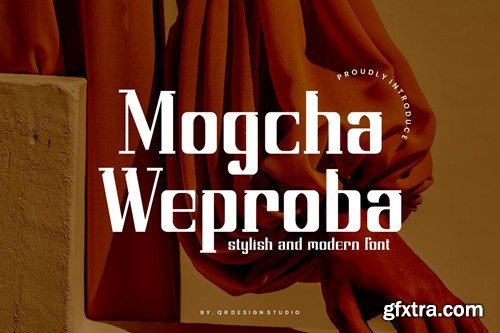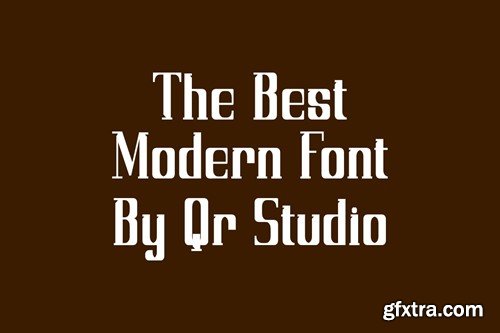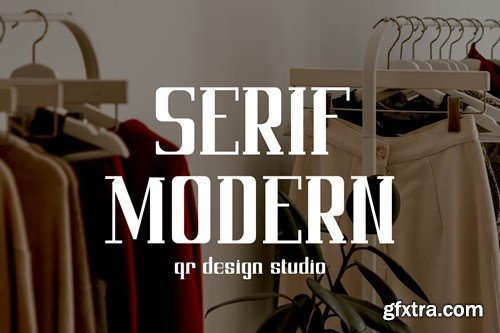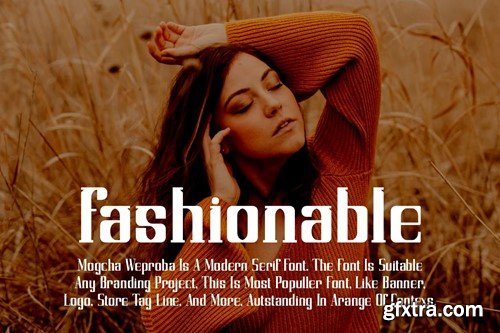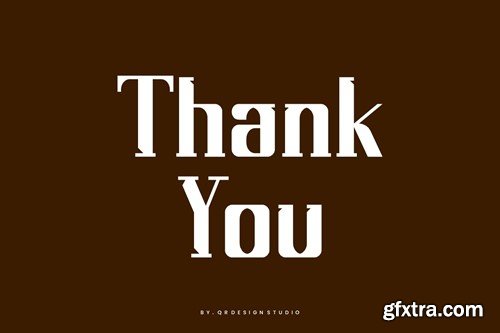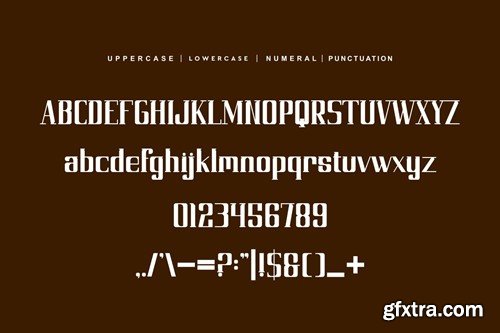
Mogcha Weproba - Serif & Modern Font YLYCJGQ
Mogcha Weproba - Serif & Modern Font
Mogcha Weproba Font is a serif and authentic display font. The font is suitable for any branding project like stylish, poster, logo, store, and many more. Outstanding in a wide range of contexts.